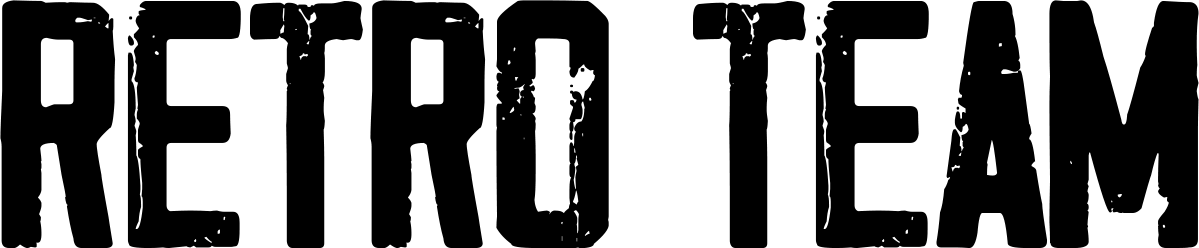
Retro Team Font
Offering a traditional touch to poster design, flyers, advertisements, and any other display design that needs an old cover is only possible through the fascinating traits of this grunge font. Here, Retro Team font despite only being attainable in uppercase letters can make your typography more distinct than before its speckled and grunge style.